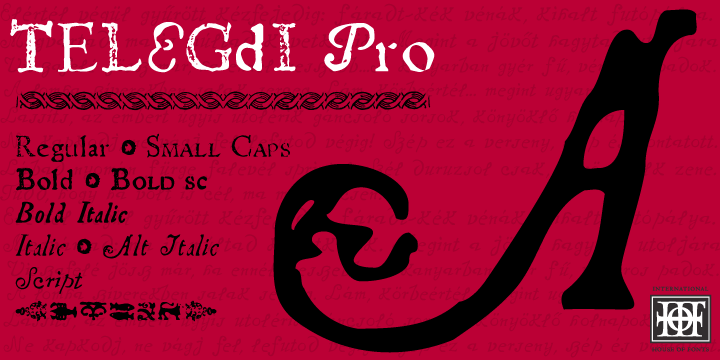
Telegdi Pro is a dingbat, historical and script font family. This typeface has nine styles and was published by International House of Fonts.
Abbot Nicolaus Telegdi purchased the Vienna Jesuit press in 1577 and started to work immediately with its own worn typefaces. His first works were publications of his own speeches.
Telegdi Pro is an authentic highly distressed font. The letter spacing and letter weight is intentionally uneven to re-create the effect of early printing which used hand cast and hand set type with irregular paper and coarse ink consistency.